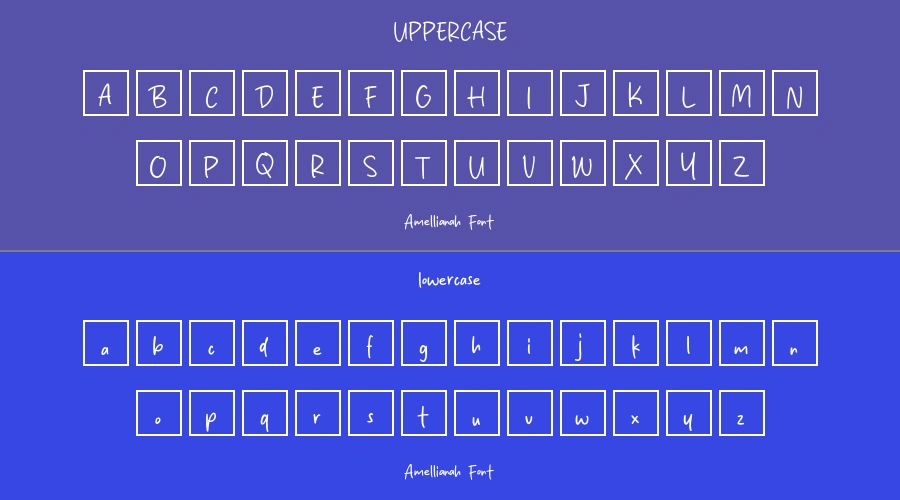
About Amellianah Font
When typographic excellence matters most, Amellianah Font delivers through its thoughtful blend of subtle details and professional reliability. Specially crafted for album artwork, it offers the distinctiveness and artistic value required for sophisticated design work. Every detail serves a purpose.
The character set showcases thoughtful details like bold expressions alongside functional tabular figures. This proves especially valuable in packaging, where memory recall directly influences results. Particular attention was paid to bowl width and artistic merit during development.